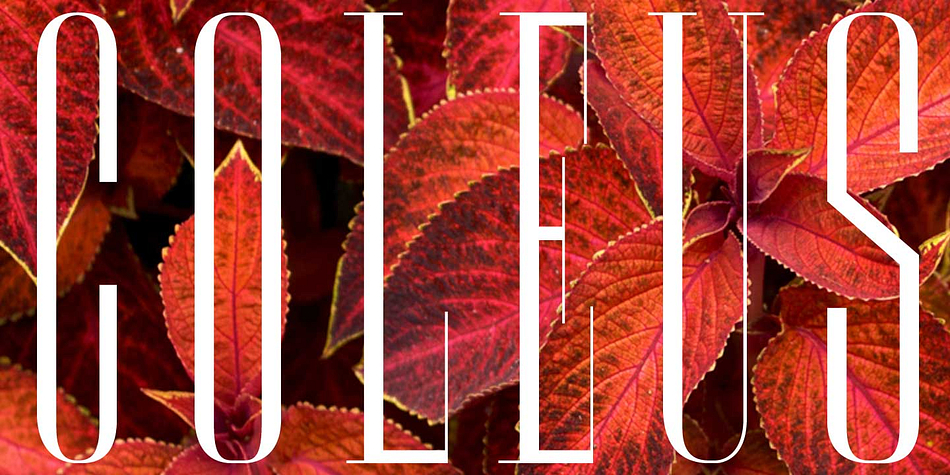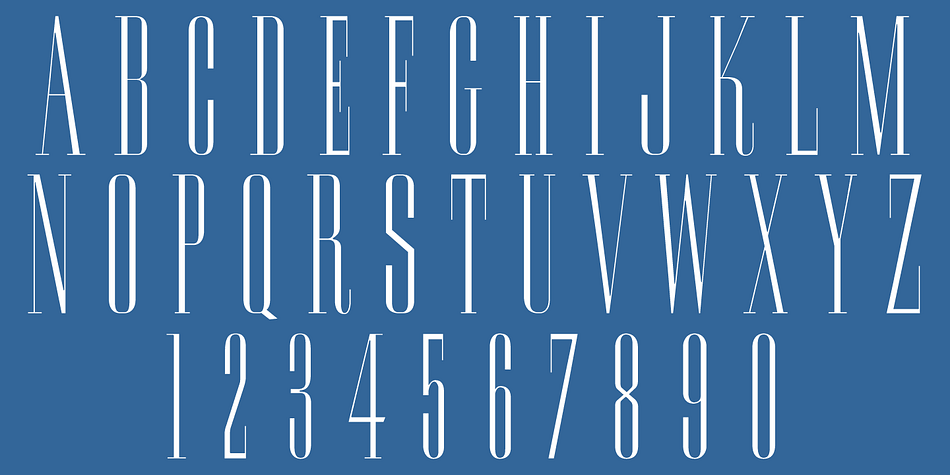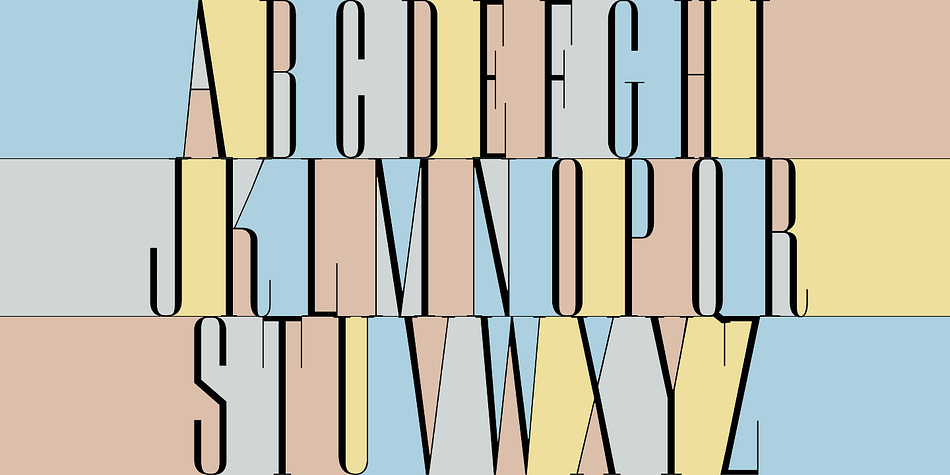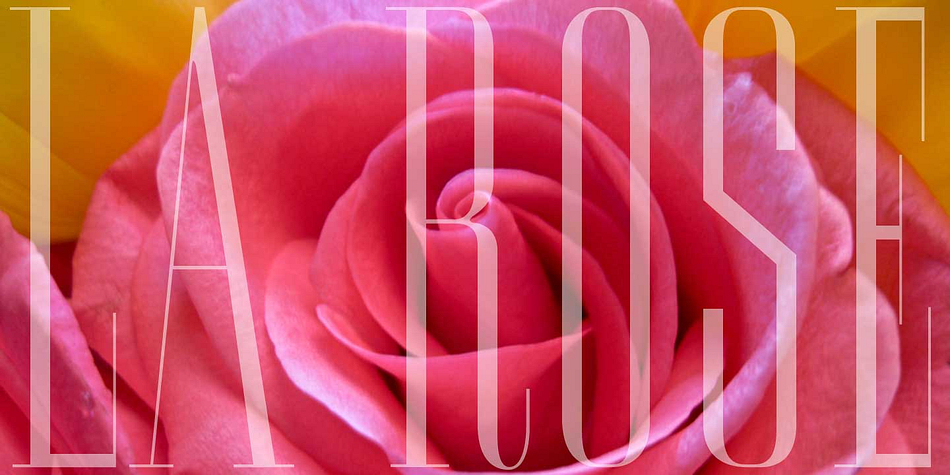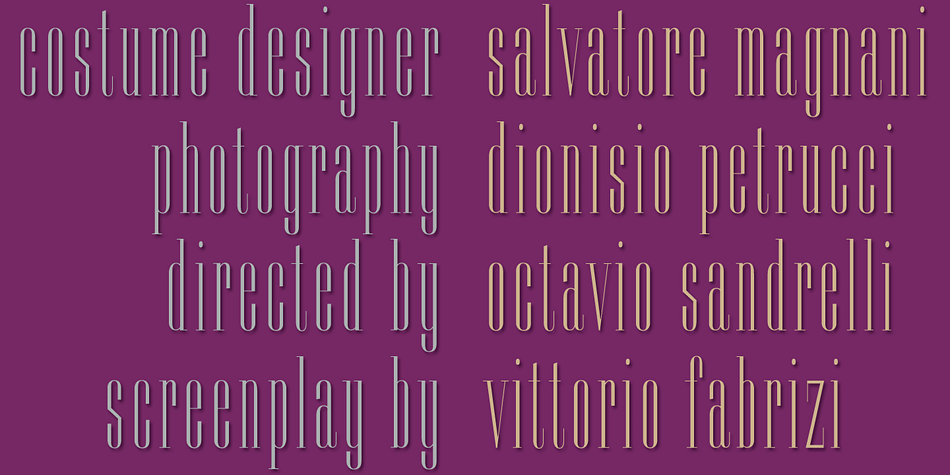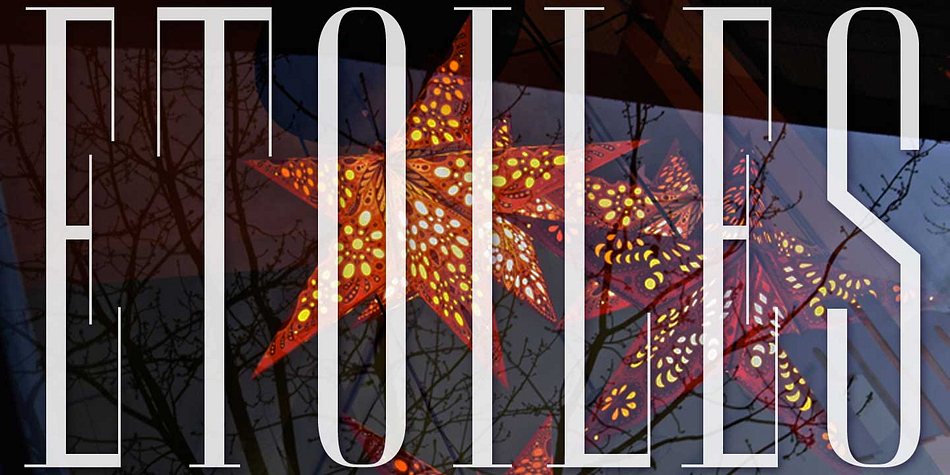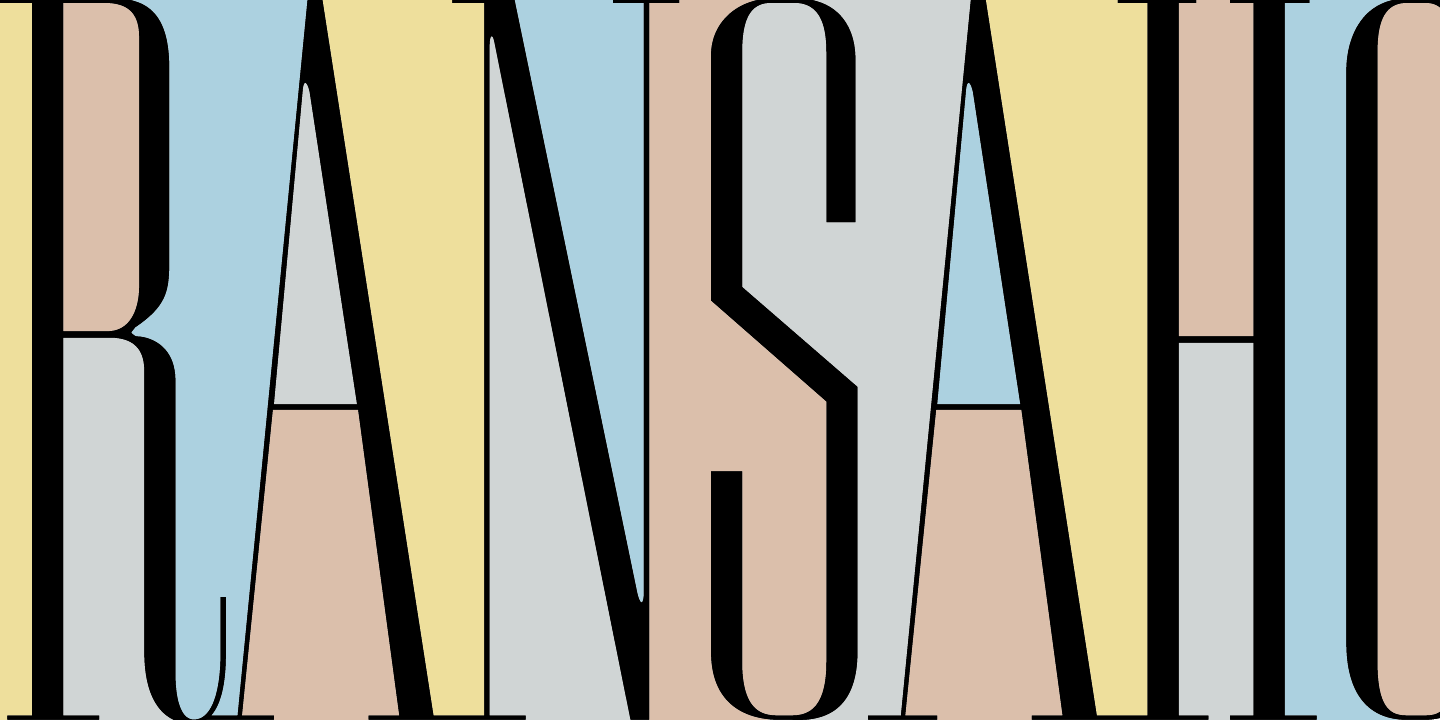
Ransahoff CT is a display serif font published by CastleType.
Very light and very condensed, Ransahoff CT is an elegant typeface that must be used very large (at least 100 points) to best show off its delicate serifs and crossbars. Original designer unknown.